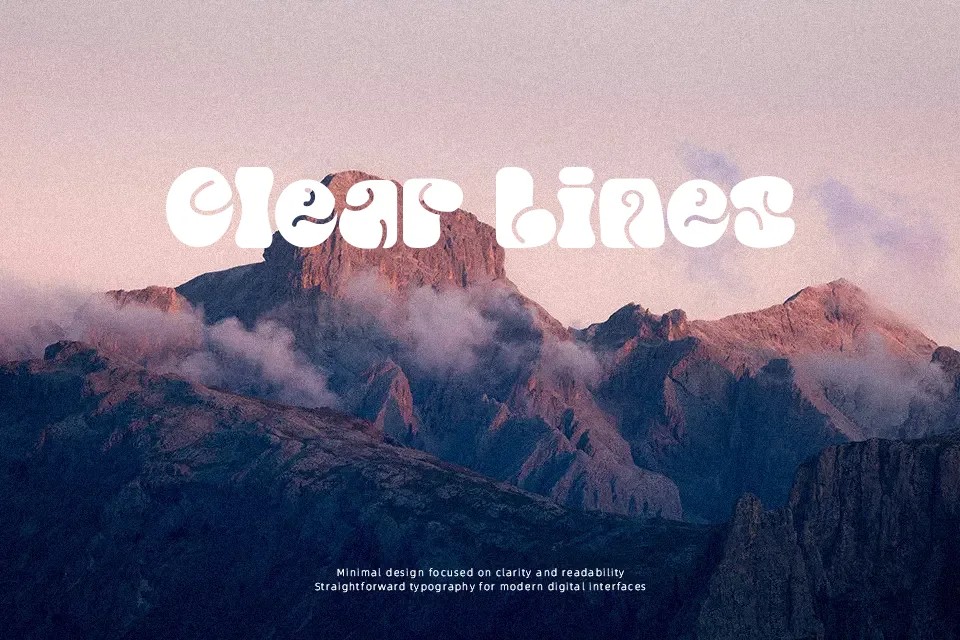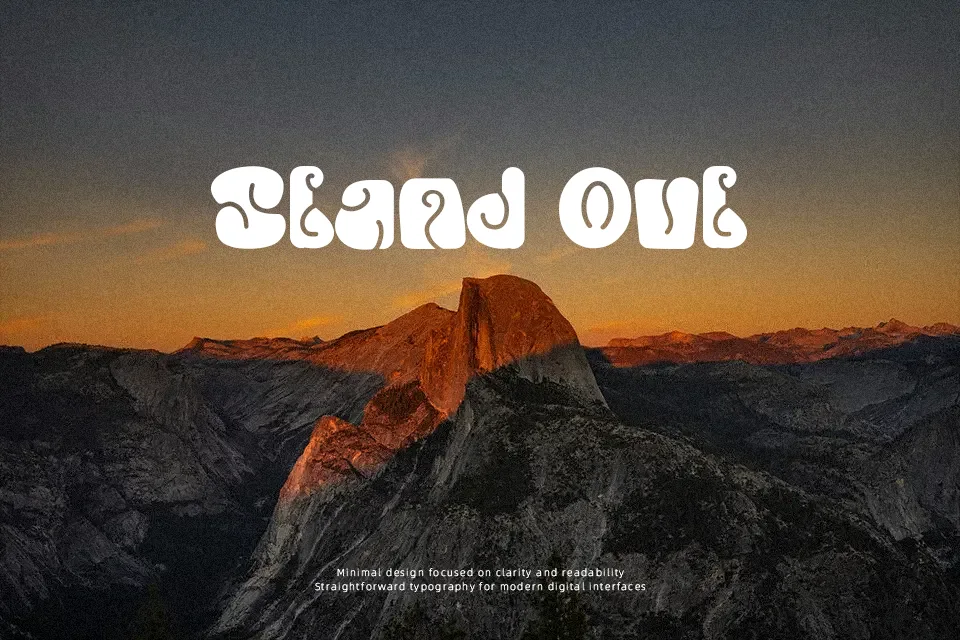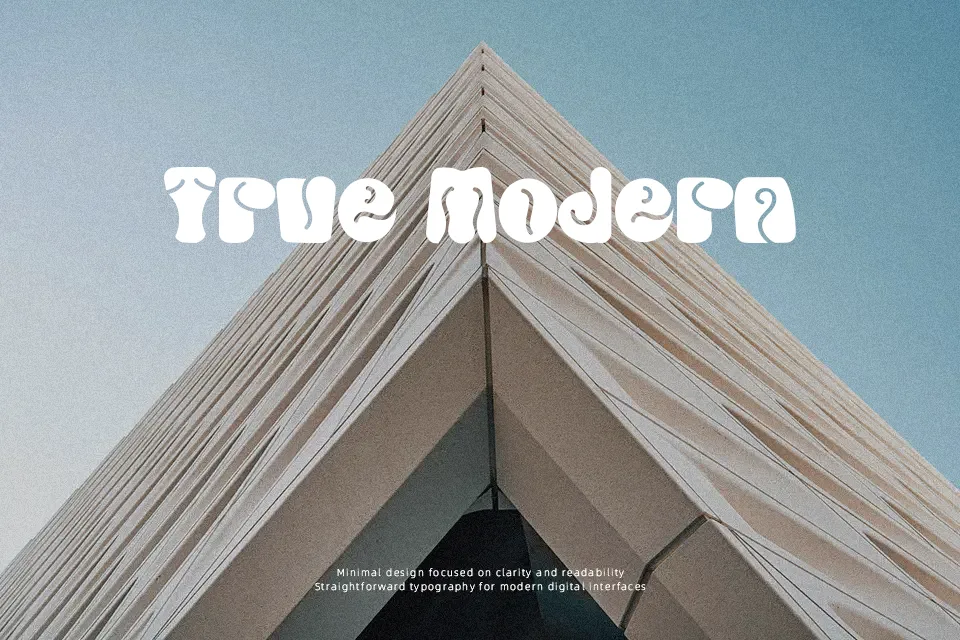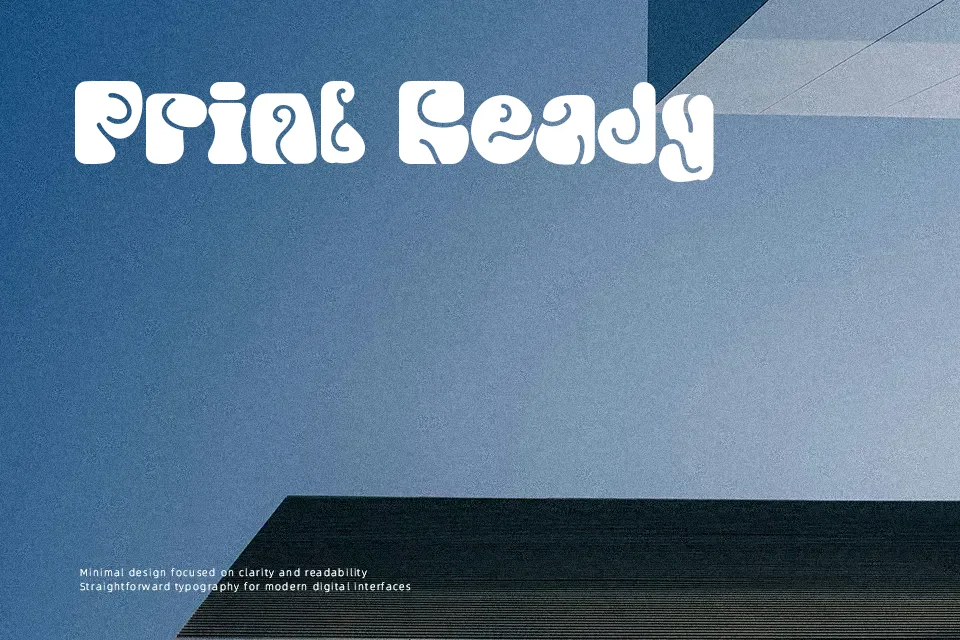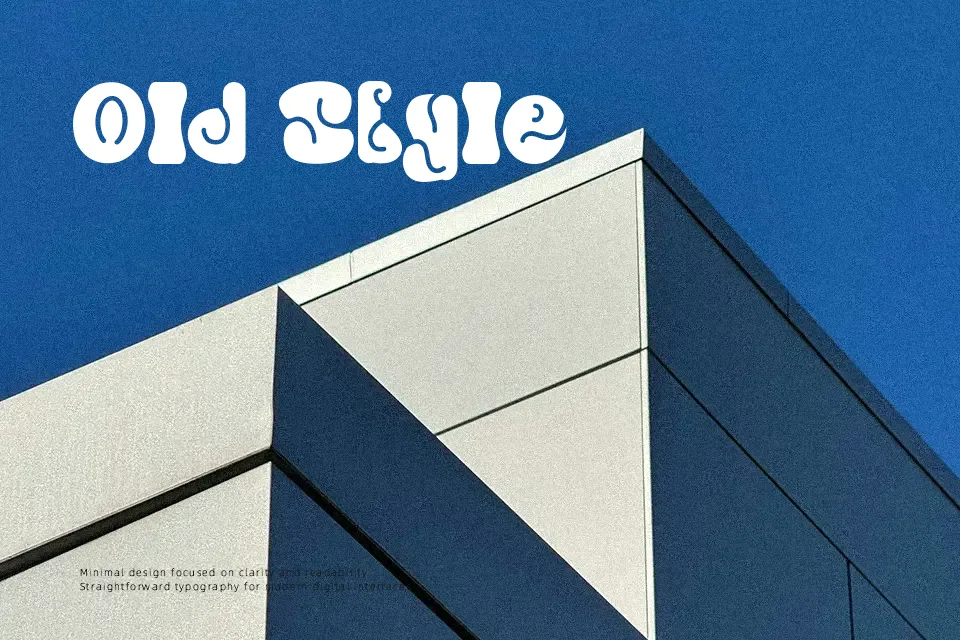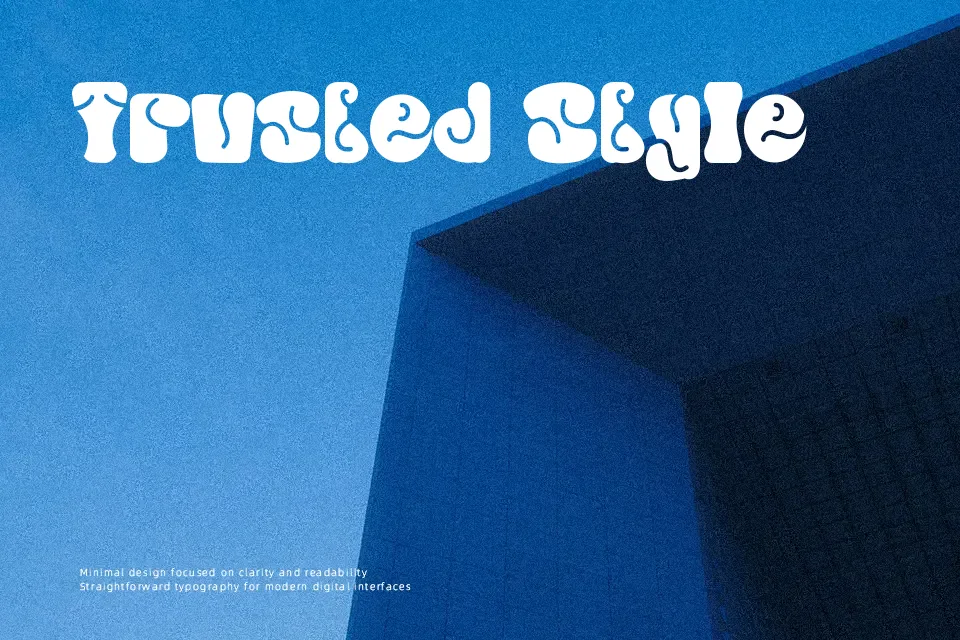
Retro Votre Font
Retro Votre Font immediately captures attention with its bold, flowing handwritten structure and distinctive swirly embellishments. The letterforms display smooth, curved strokes and well-balanced normal spacing that establish a rhythmic, energetic presence across large layouts. Decorative ligatures add a layer of playful elegance to the overall typography, ensuring strong visual impact in display scenarios. The spacing helps maintain clarity in larger headlines, making the typeface highly effective for branding and promotional materials. However, because of its heavy strokes and elaborate terminals, the design becomes less effective at smaller sizes. These decorative forms significantly reduce continuous reading comfort, making it less suitable for long paragraphs.
vintage product packaging
apparel graphics
website hero headlines
Perfect for branding, headline, and packaging, with a bold and decorative style.